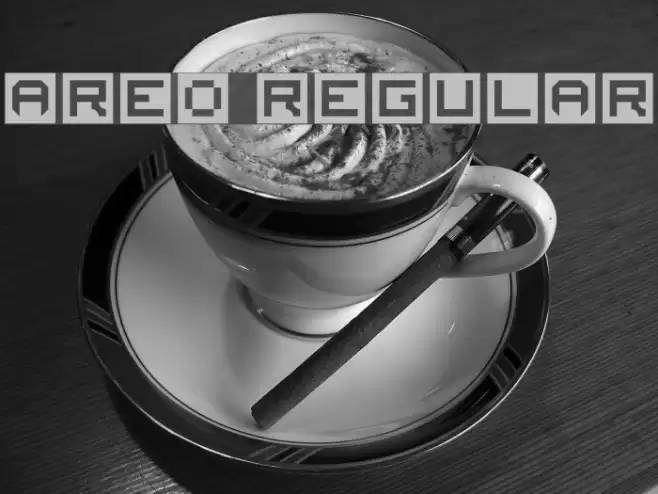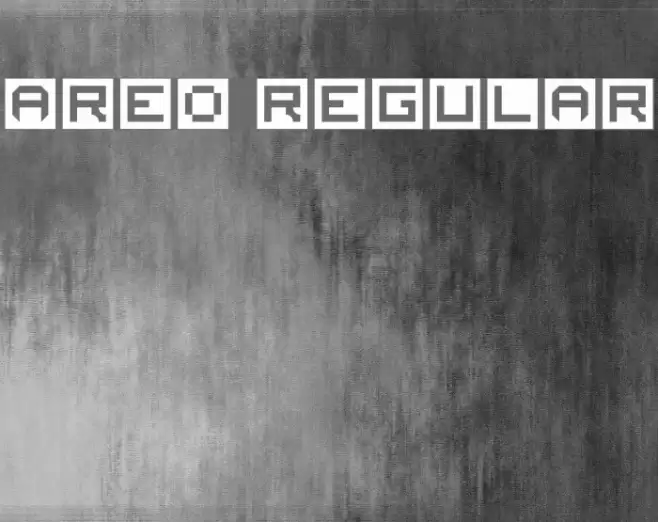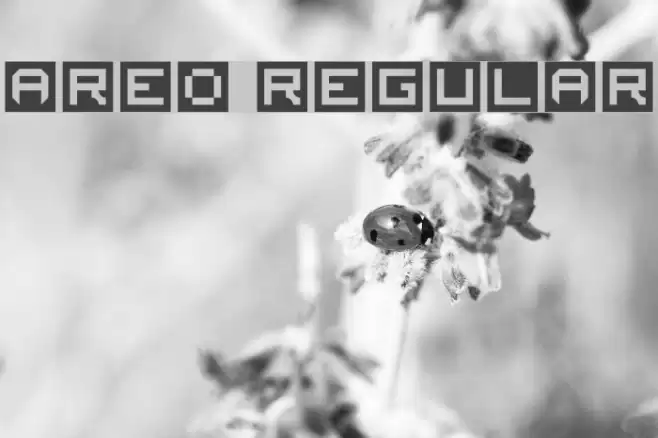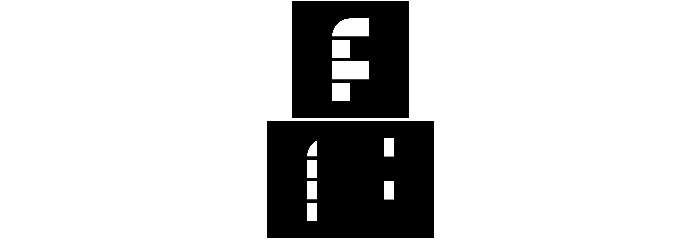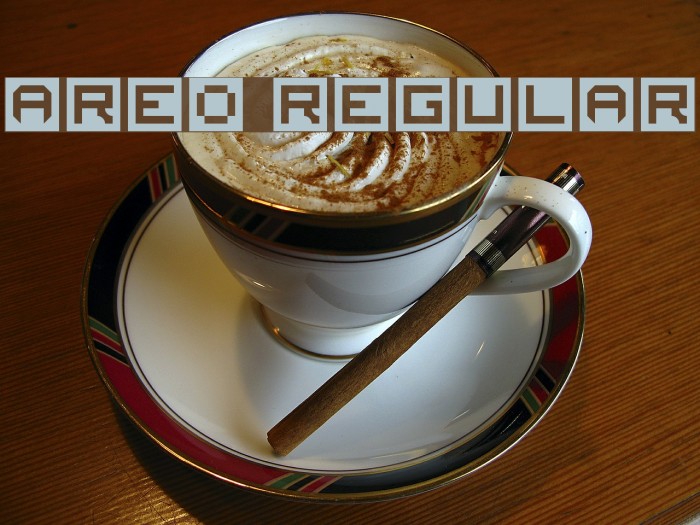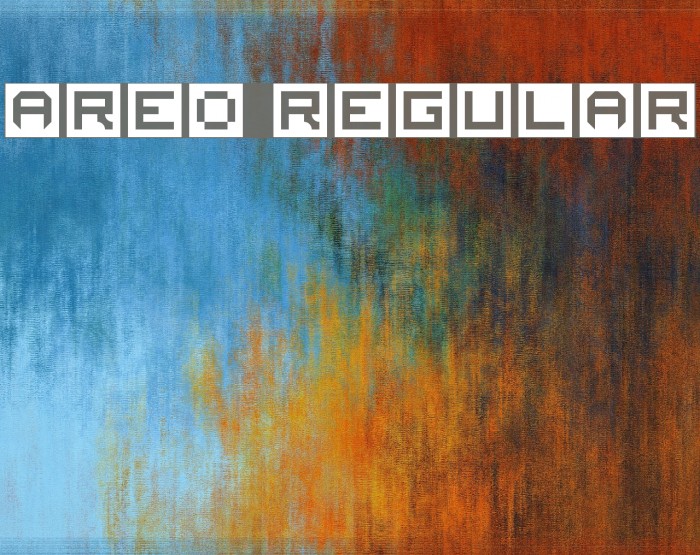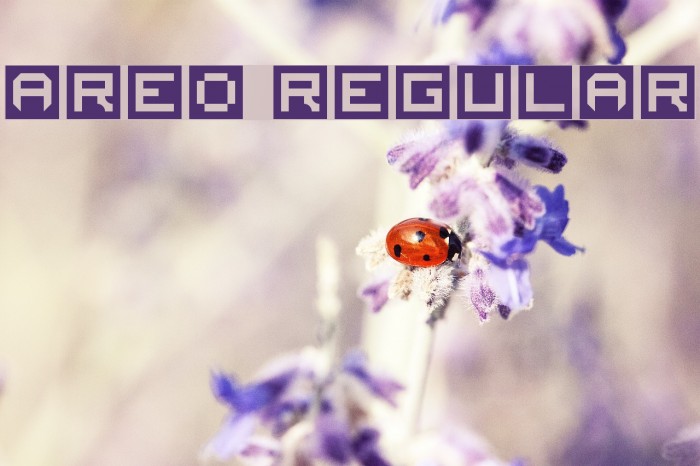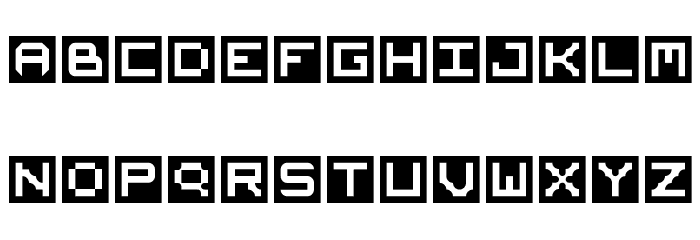
AREO Regular Font
AREO Regular Description
This font features a bold, geometric design with each character enclosed in a square, creating a striking and modern appearance. The letters are constructed with thick, uniform strokes, giving them a strong presence. The use of negative space within the squares adds a unique touch, making each letter stand out distinctly. The overall style is reminiscent of digital or pixel art, which adds a contemporary and tech-inspired feel. This font is ideal for projects that require a futuristic or digital aesthetic, such as video game graphics, tech branding, or modern posters.
A bold, geometric font with characters enclosed in squares, offering a modern, digital look from Futuristic fonts.
- Proposed Projects: Ideal for video game graphics, tech branding, modern posters, and digital-themed designs.